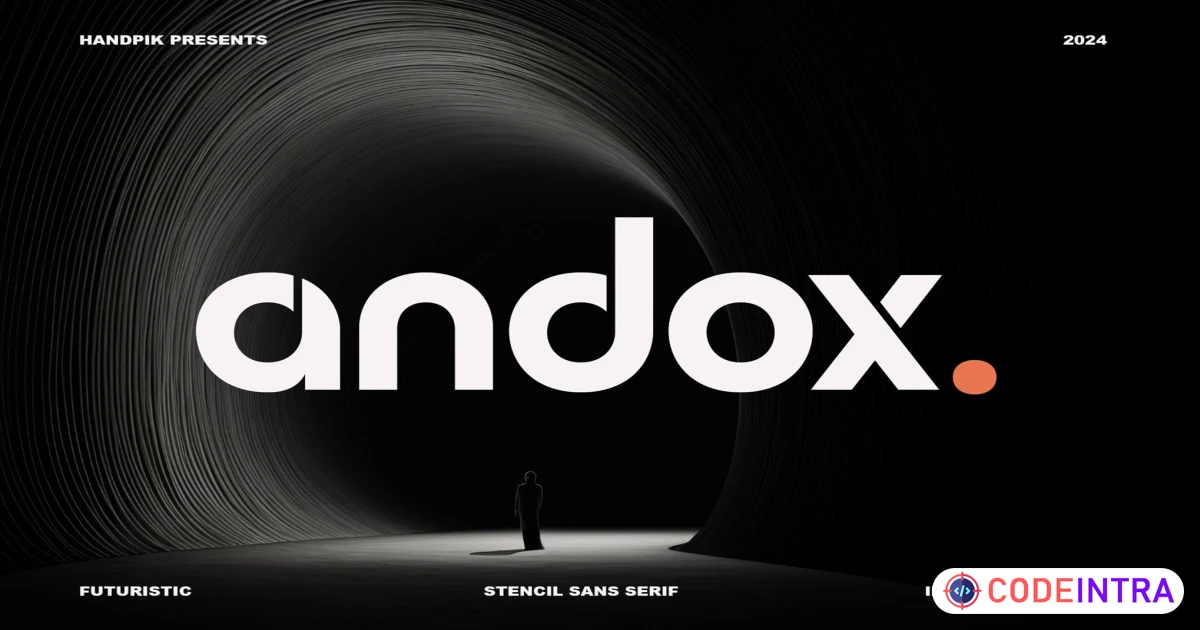
Andox Web Font Classification Sans-Serif
Andox will perfect for many project: book, magazines, logo, branding, photography, quotes, blog header, poster, advertisements, etc.